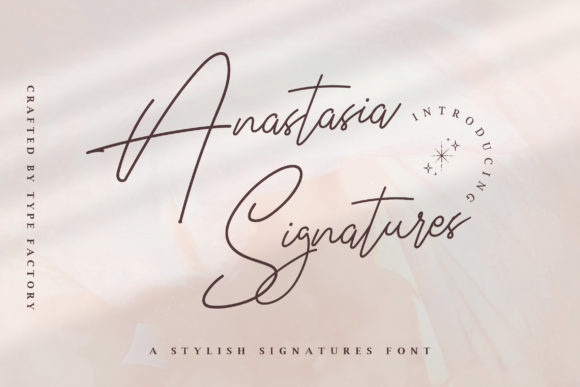
The Anastasia Signature Font: A Designer’s Dream Come True
I’ll never forget the time I was working on a wedding invitation project for a client, and I just couldn’t seem to find the perfect font. The client wanted something elegant, sophisticated, and romantic, but everything I tried looked either too bland or too over-the-top. That’s when I stumbled upon the Anastasia Signature font, and let me tell you, it was love at first sight! 💕
This stunning script font has a way of making any design look instantly more refined and polished. Its thin lettering and graceful curves are perfect for creating beautiful wedding invitations, stationary art, social media posts, and so much more. In this article, I’ll be sharing my honest review of the Anastasia Signature font, along with some practical tips on how to use it, similar font alternatives, and a little backstory behind its design.
- ✨ Elegant and sophisticated design that’s perfect for high-end projects
- 💫 Beautifully crafted letterforms with intricate details
- 🎨 Highly versatile and can be used for a wide range of design projects
While the Anastasia Signature font is an absolute beauty, there are a few things to keep in mind:
- 🤔 It can be a bit tricky to pair with other fonts, so be sure to experiment with different combinations to find the perfect match
- ⚠️ Some of the more intricate details may get lost at very small font sizes, so use it at a minimum of 12-14pt for best results
If you love the Anastasia Signature font but want to explore other options, here are a few similar fonts you might enjoy:
- Elaine Script: A beautiful, flowing script font with a similar elegance to Anastasia Signature. Use it for wedding invitations, stationery, and other formal designs.
- Marina Script: A stunning, modern script font with a sophisticated feel. Perfect for luxury brands, high-end designs, and creative projects.
- Sofia Signature: A gorgeous, feminine script font with a whimsical touch. Use it for feminine designs, wedding invitations, and social media graphics.
- Luisa Script: A beautiful, elegant script font with a classic feel. Suitable for formal designs, stationery, and wedding invitations.
The Designer Inspiration Behind Anastasia Signature
While I couldn’t find any information on the actual designer behind Anastasia Signature, I like to imagine that it was created by a team of designers who are passionate about typography and elegance. Perhaps they were inspired by the beautiful calligraphy of the past, or the intricate details of handwritten scripts. Whatever the inspiration, it’s clear that Anastasia Signature is a labor of love, and its beauty shines through in every letterform.
Q: What type of projects is Anastasia Signature best suited for?
A: Anastasia Signature is perfect for high-end designs, wedding invitations, stationery, social media graphics, and any project that requires an elegant, sophisticated touch.
Q: Is Anastasia Signature a difficult font to pair with other fonts?
A: While Anastasia Signature can be a bit tricky to pair with other fonts, it’s not impossible! Experiment with different combinations to find the perfect match for your design.